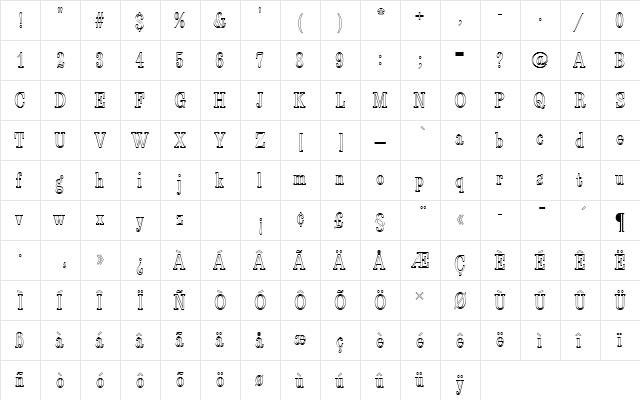
EgizioTConOu1 Regular Font Preview
EgizioTConOu1 Regular
Design Context for EgizioTConOu1 Typeface
EgizioTConOu1 offers clean, dependable letterforms without strong stylistic allegiance, making it a practical choice for designers who need flexibility.